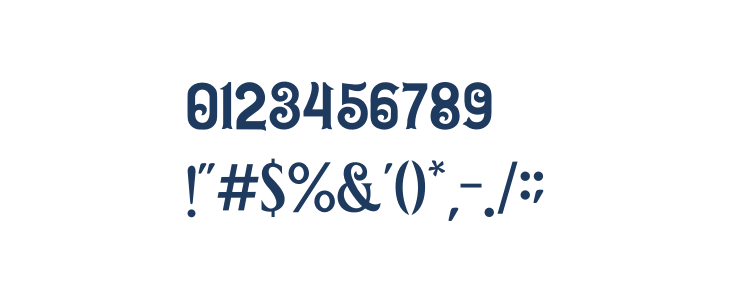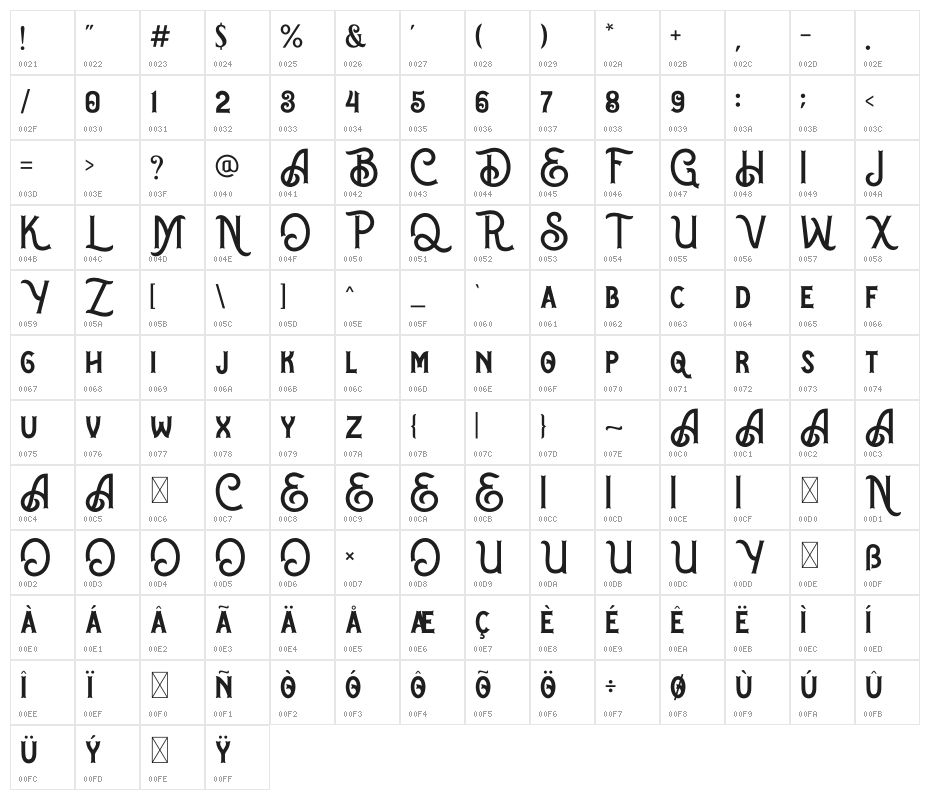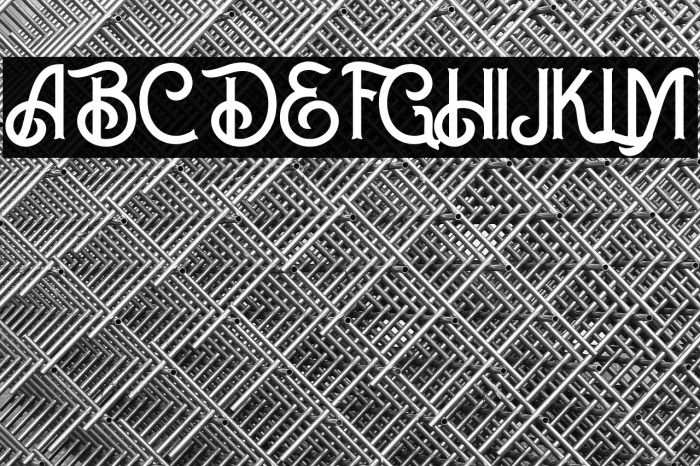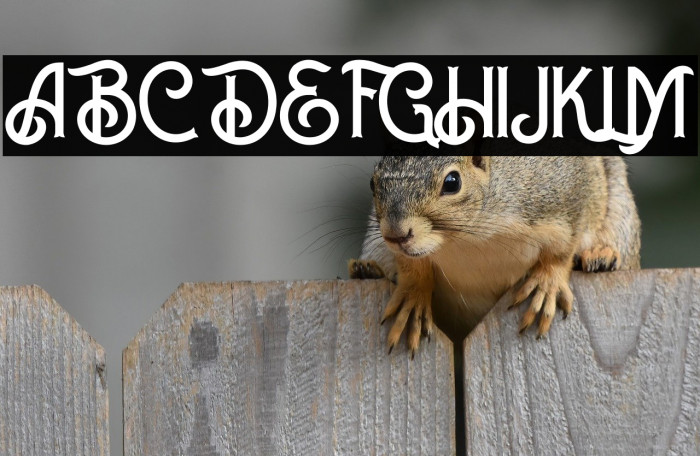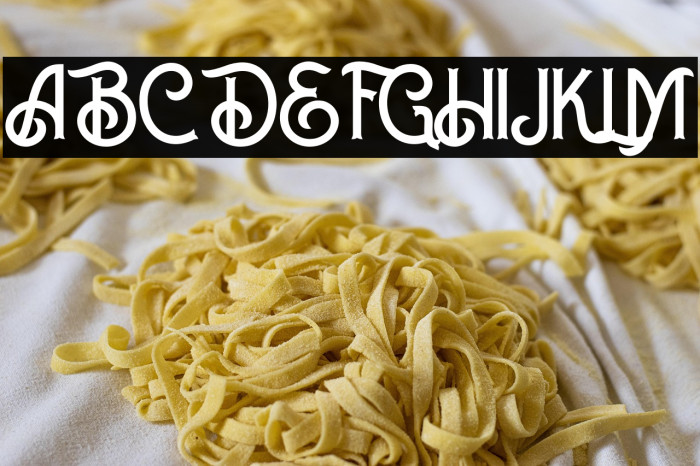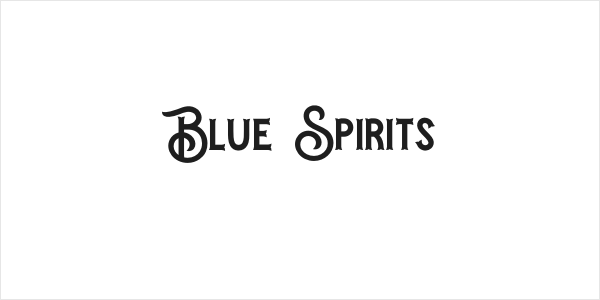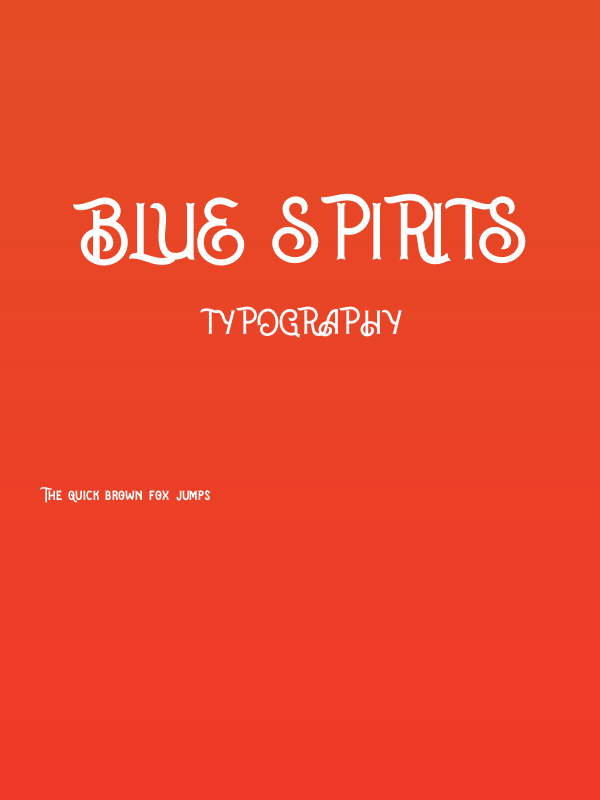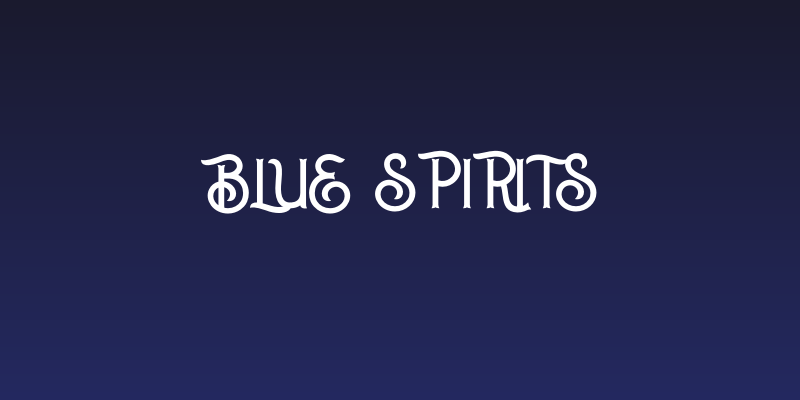
Blue Spirits Font
Blue Spirits Description
This font features a unique blend of decorative and bold elements, characterized by its swirling, ornate uppercase letters that evoke a sense of whimsy and creativity. The lowercase letters maintain a more straightforward yet bold appearance, ensuring readability while still offering a touch of flair. The numerals and special characters are consistent with the font's overall style, providing a cohesive look. This font's distinctive style makes it ideal for projects that require a playful yet impactful visual presence.
| Proposed Projects | Ideal for branding, posters, invitations, and any design project that requires a playful and bold aesthetic. |